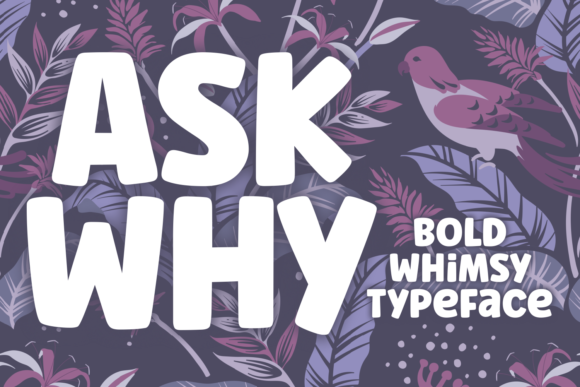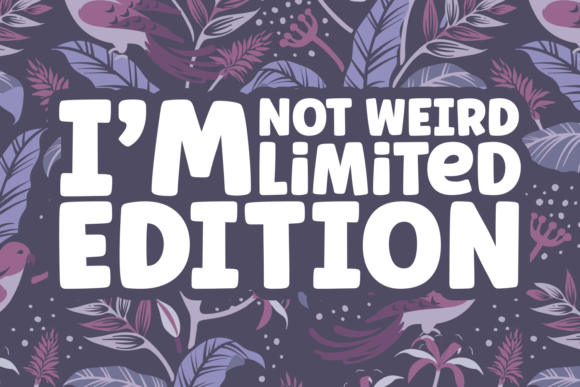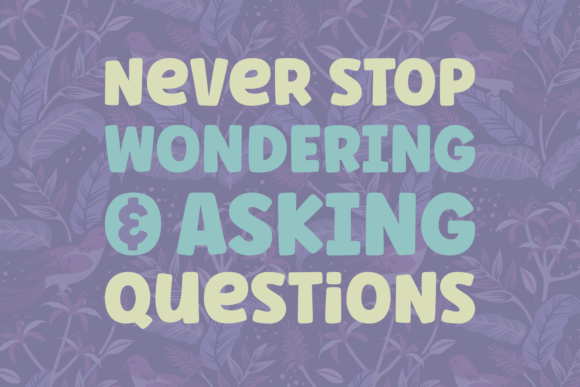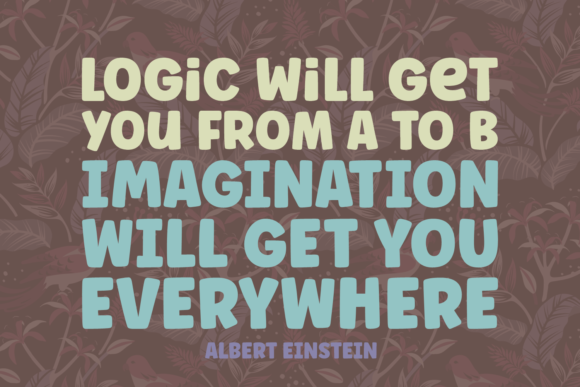
Ask Why Font: A Chunky & Playful Display Font for Cricut Crafts
About the Ask Why Font
The wait is over! The incredible Ask Why Font is now available for your design toolkit. Ask Why is a cool, bold yet whimsical display font. Add this chunky lettered font to your designs and notice how it makes them come alive!
Ask Why Font excels as a display font for headlines, short titles, and branding elements where its bold, whimsical nature can make a strong visual statement. It’s ideal for projects targeting a younger demographic or those with a playful, energetic brand identity, such as children’s products, comics, or event posters. However, its chunky letterforms and limited x-height make it unsuitable for body text or UI elements requiring high readability.
Pairing Ask Why with a clean sans-serif like Open Sans for body copy provides a balanced contrast. For a more playful feel, consider a rounded geometric sans-serif like Futura Rounded. If a more sophisticated look is desired, a classic serif like Garamond can add elegance and counter the font’s whimsicality.
The overall personality of Ask Why Font is bold, playful, and slightly quirky. Its chunky letterforms and irregular weight distribution convey a friendly yet assertive energy.
Ask Why Font Usage Examples
Ask Why Font Example